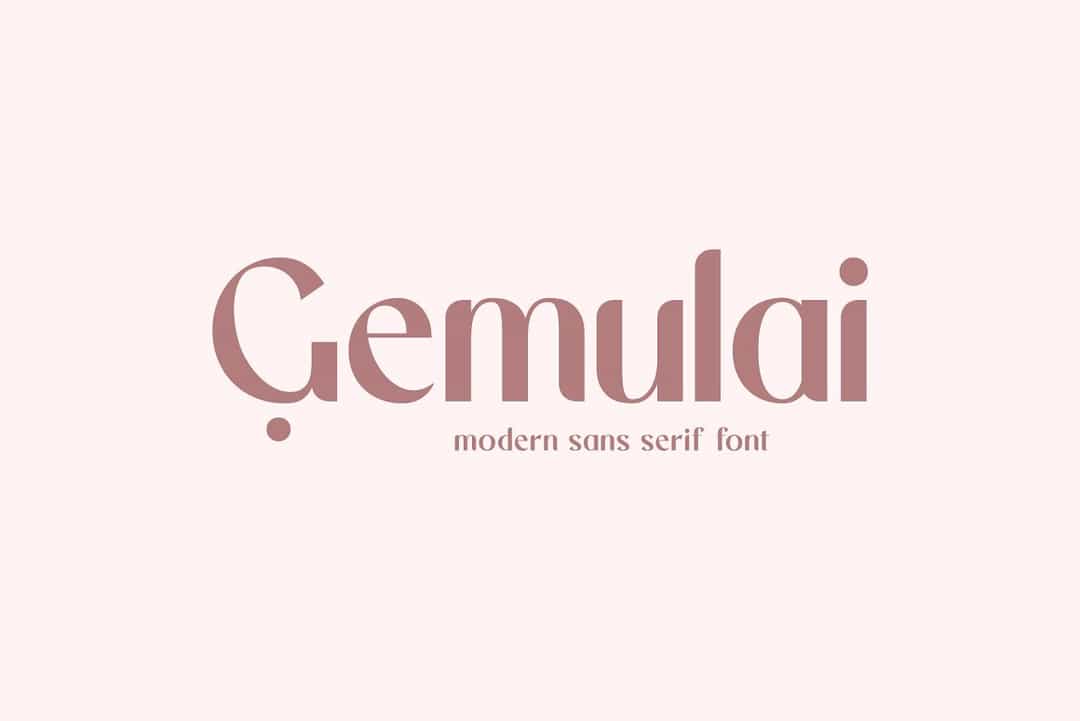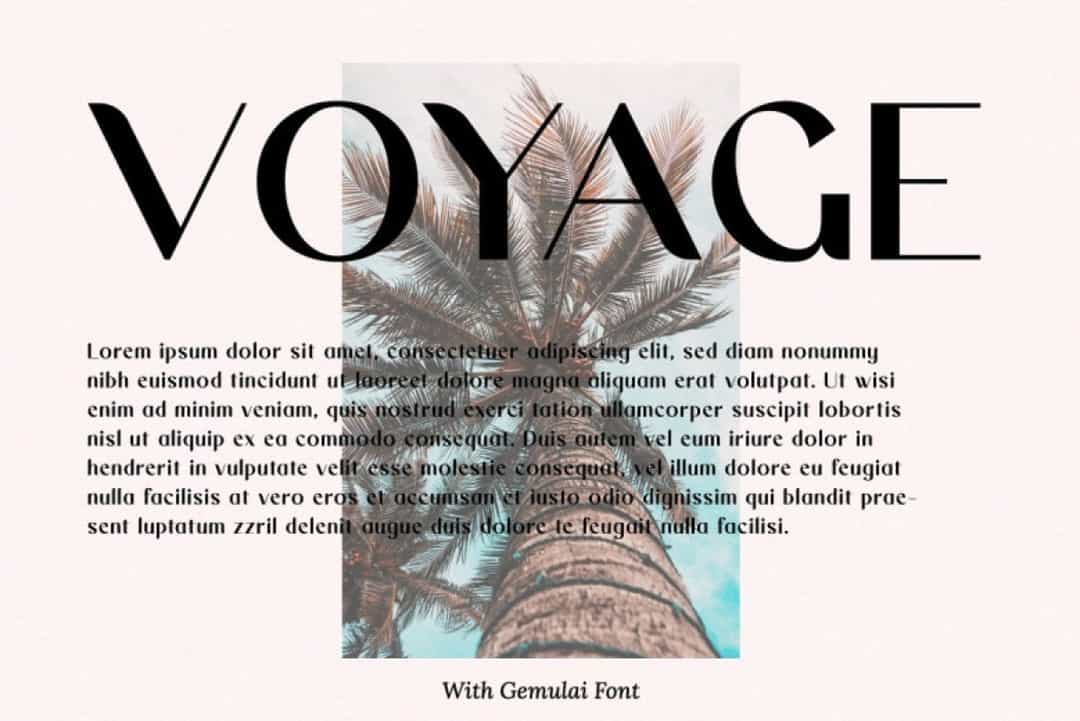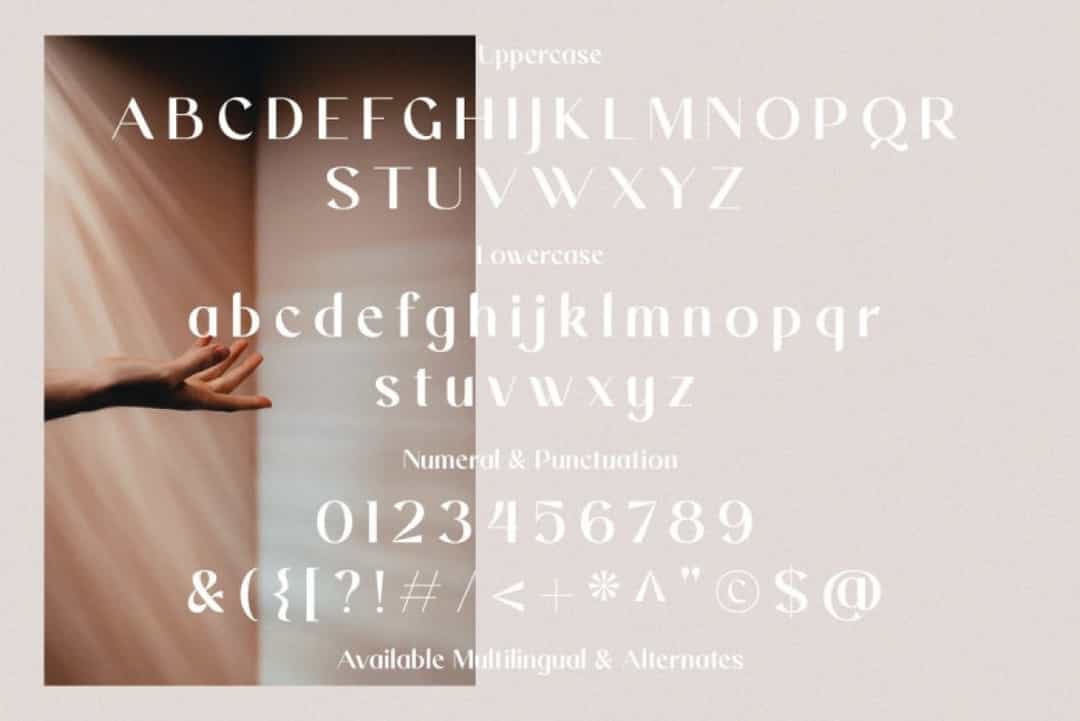
Gemulai is an eye-catching sans serif font designed for contemporary designs, providing them with an appealing appearance. Ideal for logos, branding covers and more; featuring Uppercase, Lowercase letters, numerals, punctuation, multilingual punctuation with Ligatures & Alternates options.